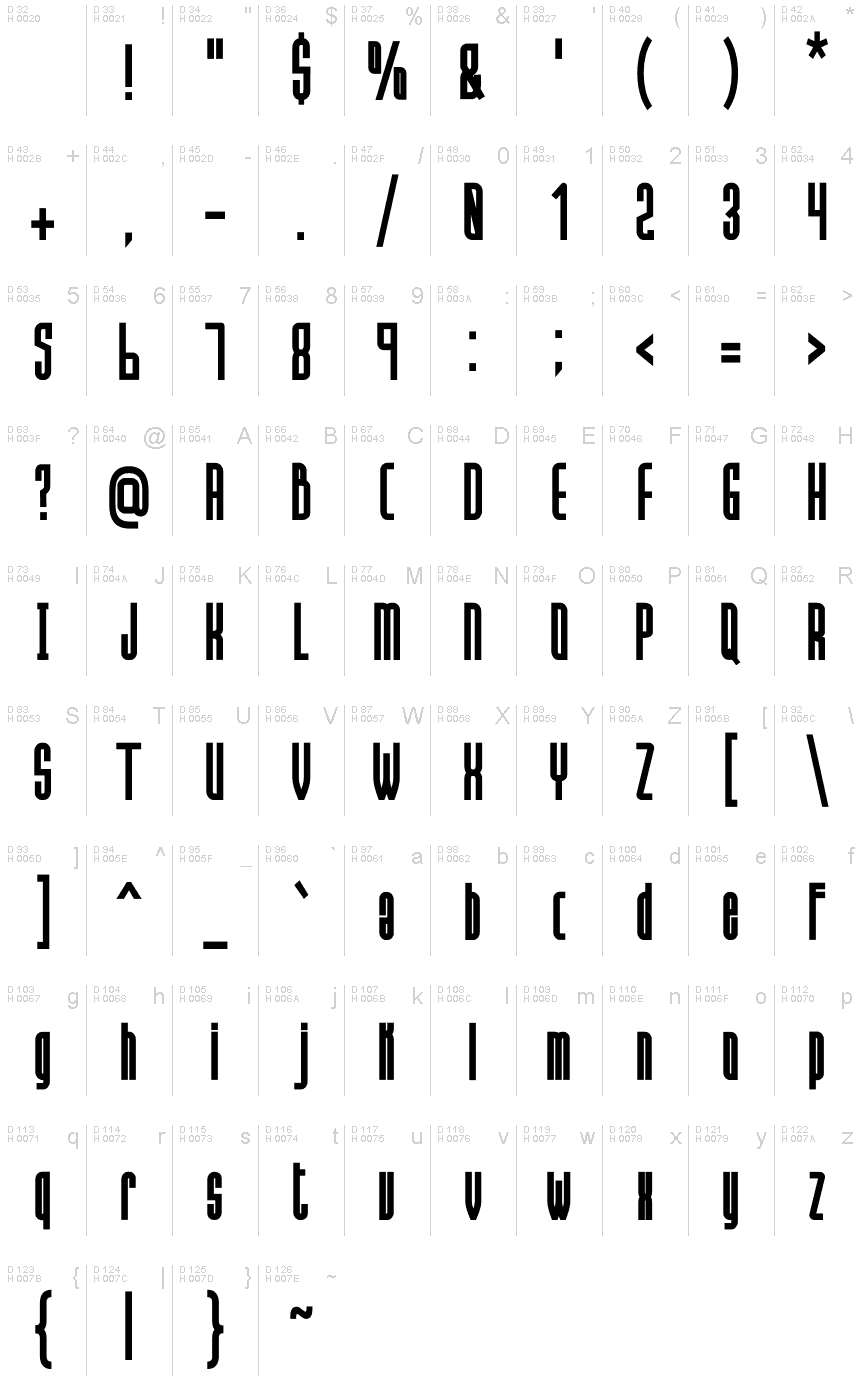
Hanca Bold Bold
Introducing: HANCA
HANCA is the perfect fit. It's a memorable, strong and elegant typeface.
APPLICATIONS This collection is perfect for headlines, quotes, magazine covers, editorial design, print posters, signage, window shop design, and much more.